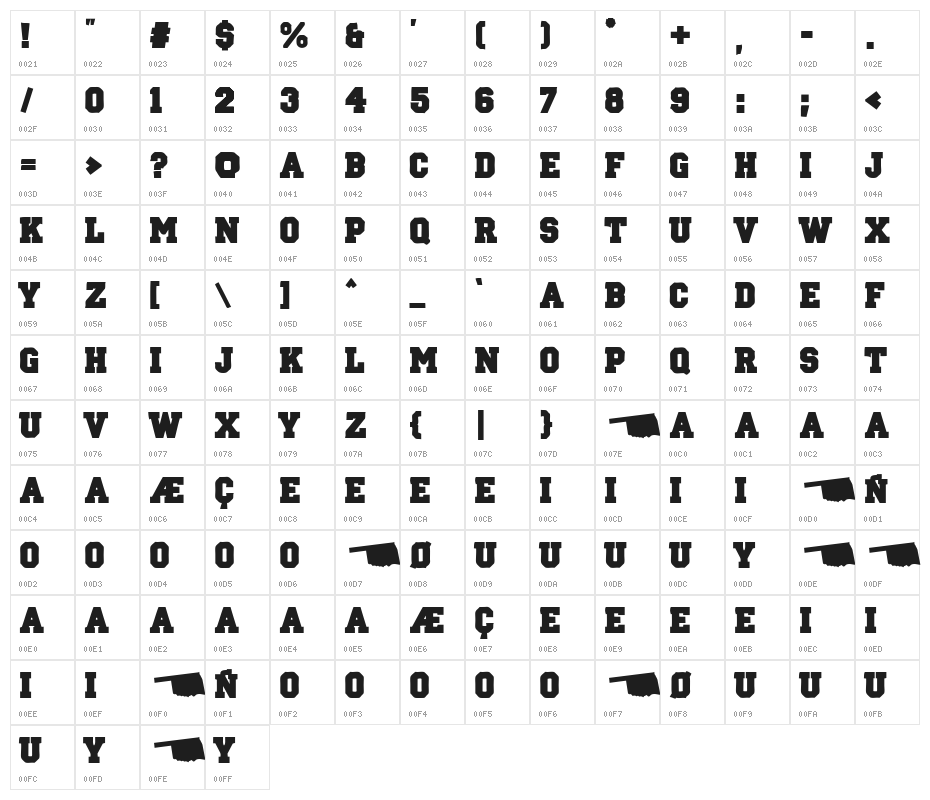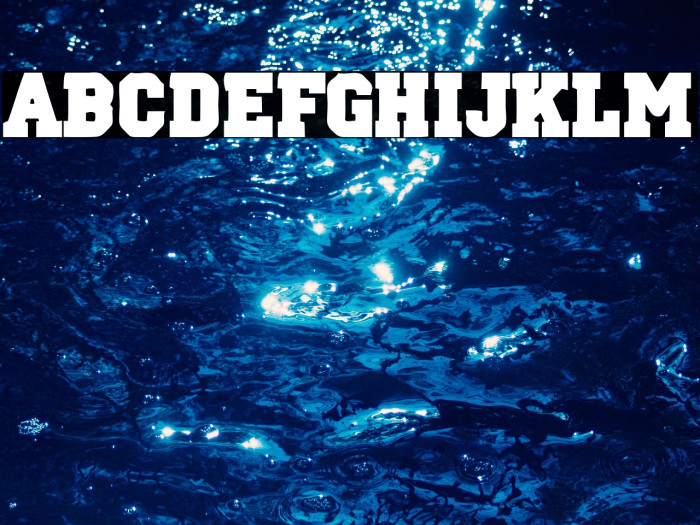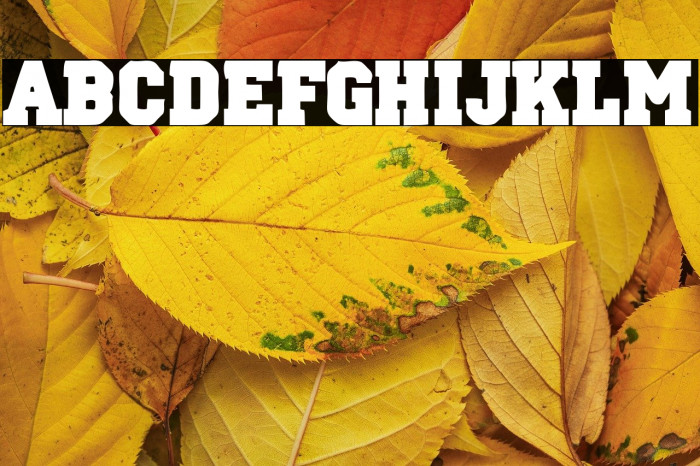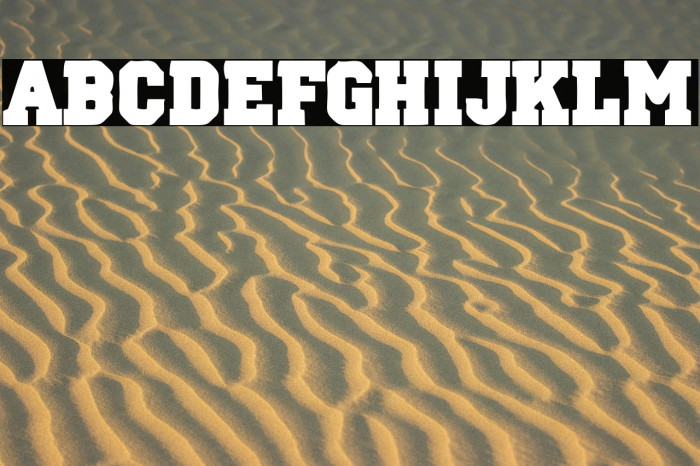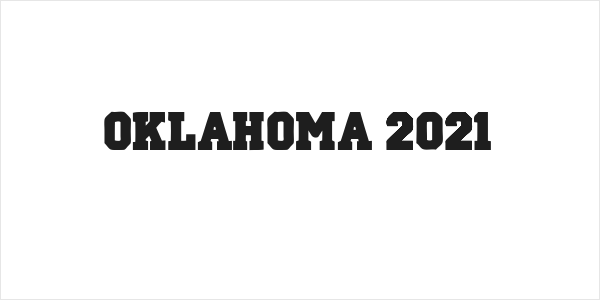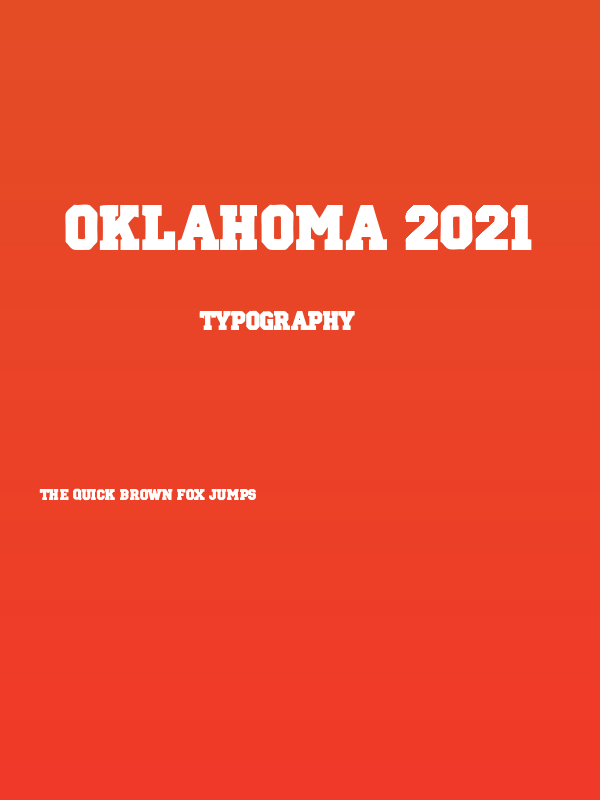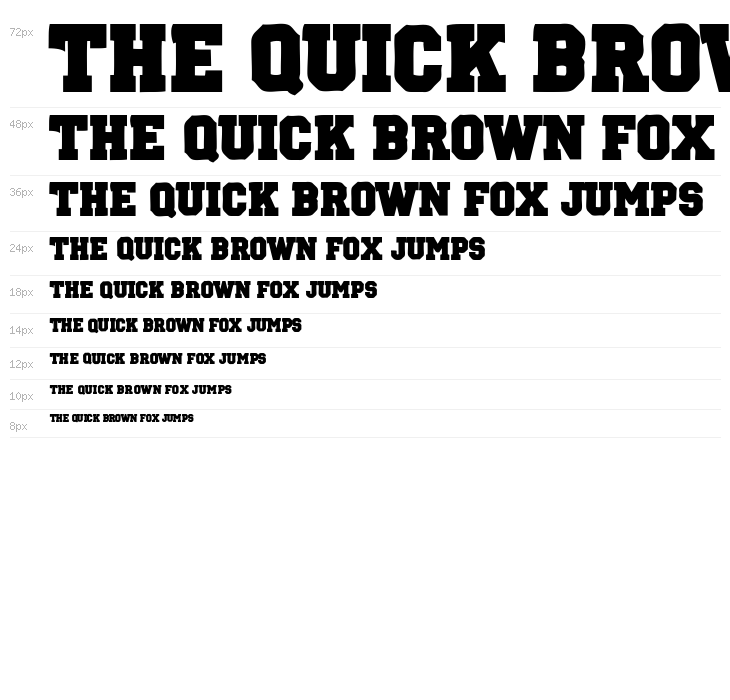
Oklahoma 2021 Font
Oklahoma 2021 Description
This font features a bold and robust design with thick, blocky characters that convey strength and impact. The uppercase letters are uniformly wide, with a strong presence that makes them ideal for commanding attention. The numbers and special characters maintain this bold aesthetic, ensuring consistency across all glyphs. The font's design is reminiscent of vintage sports or collegiate styles, with a modern twist that makes it versatile for various applications. Its heavy weight and solid structure make it suitable for projects that require a strong visual impact.
| Proposed Projects | Ideal for sports team branding, posters, headlines, and logos that require a strong, impactful presence. |